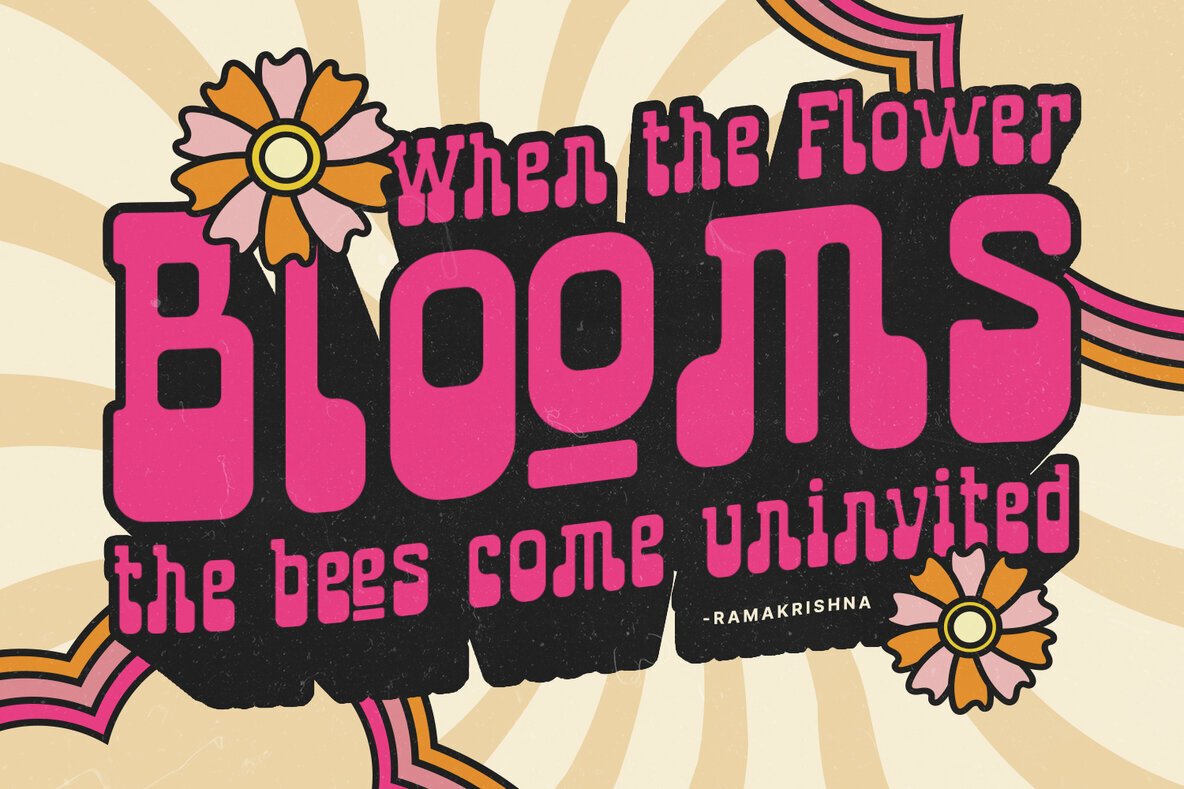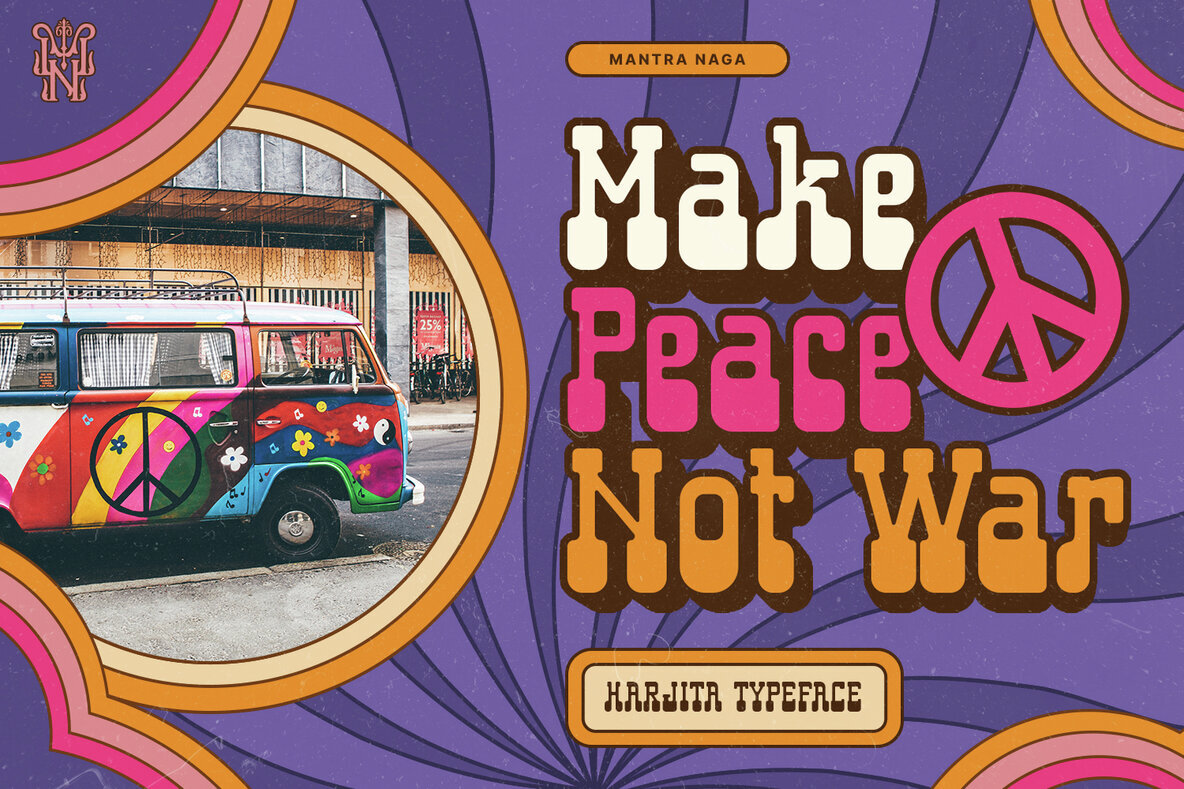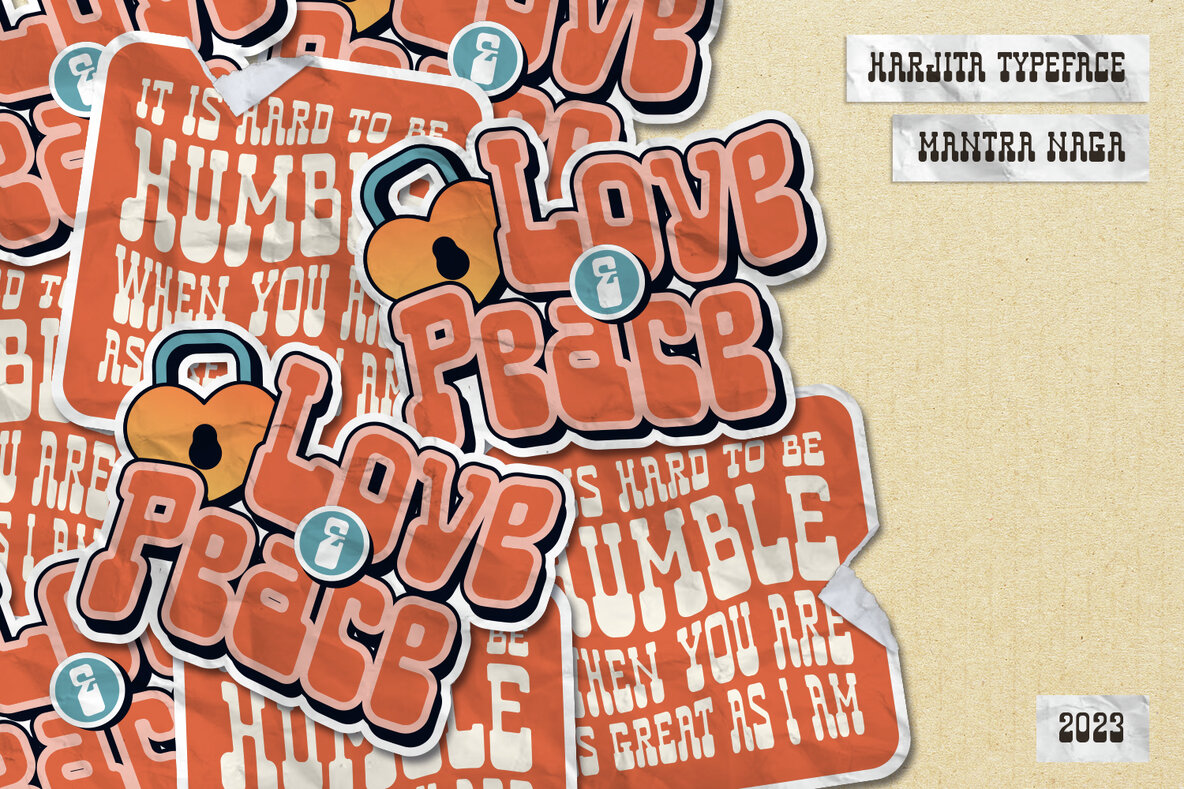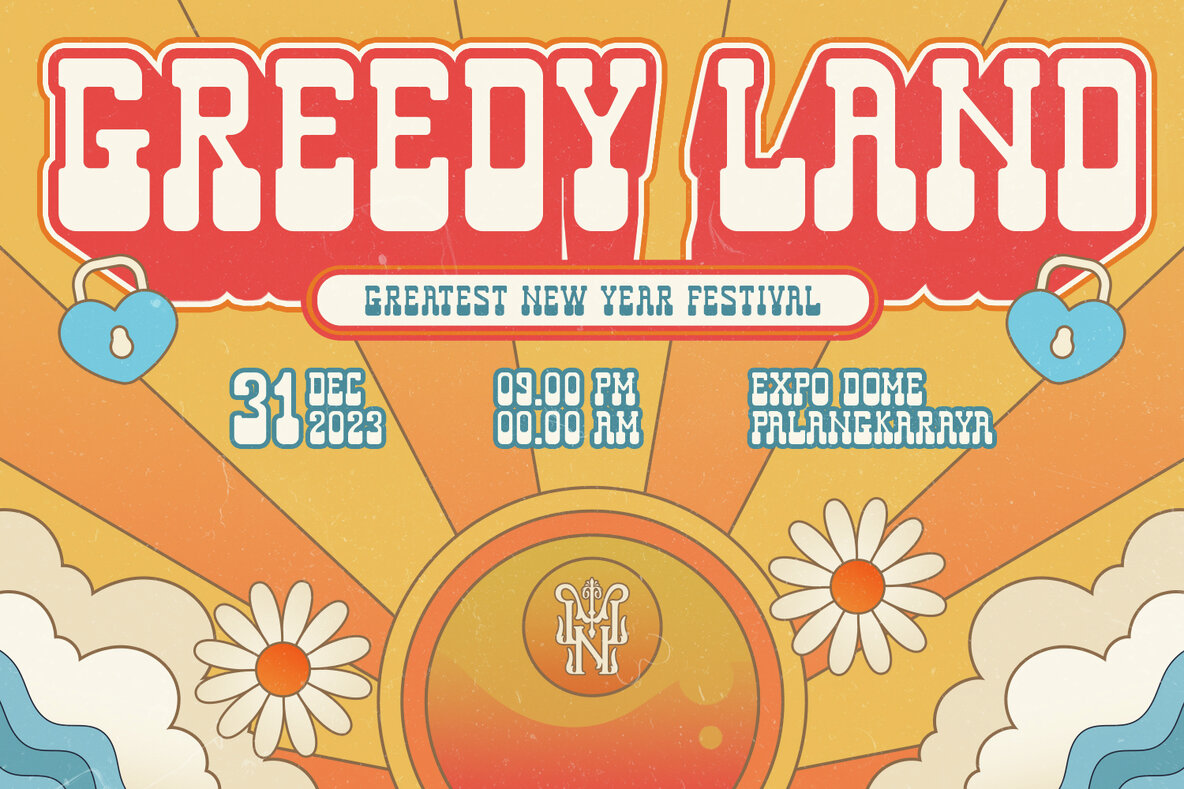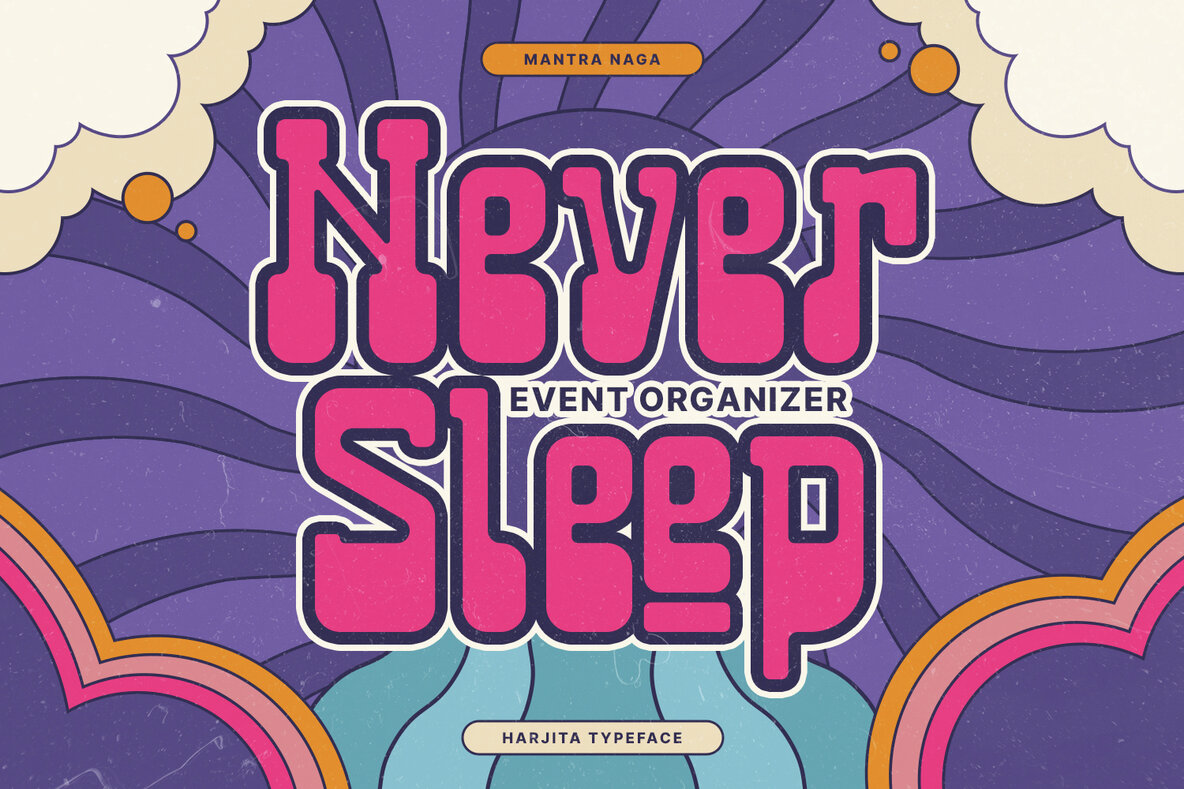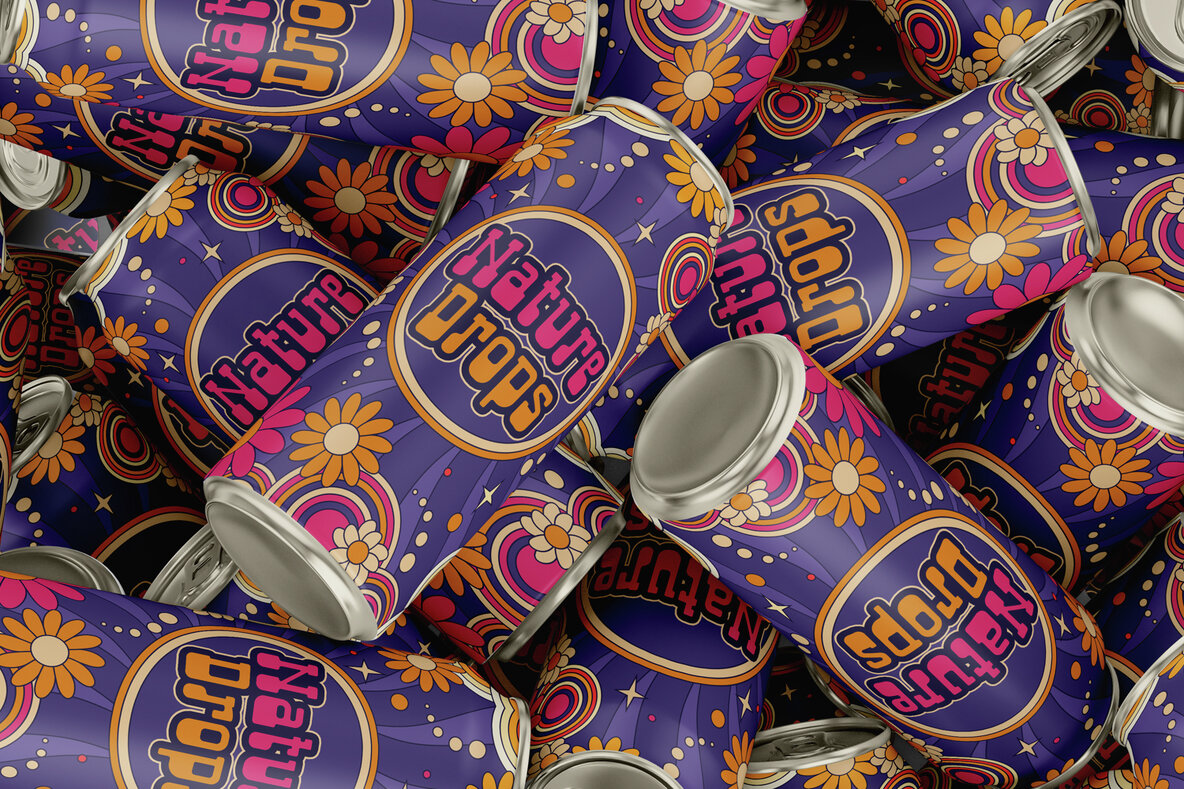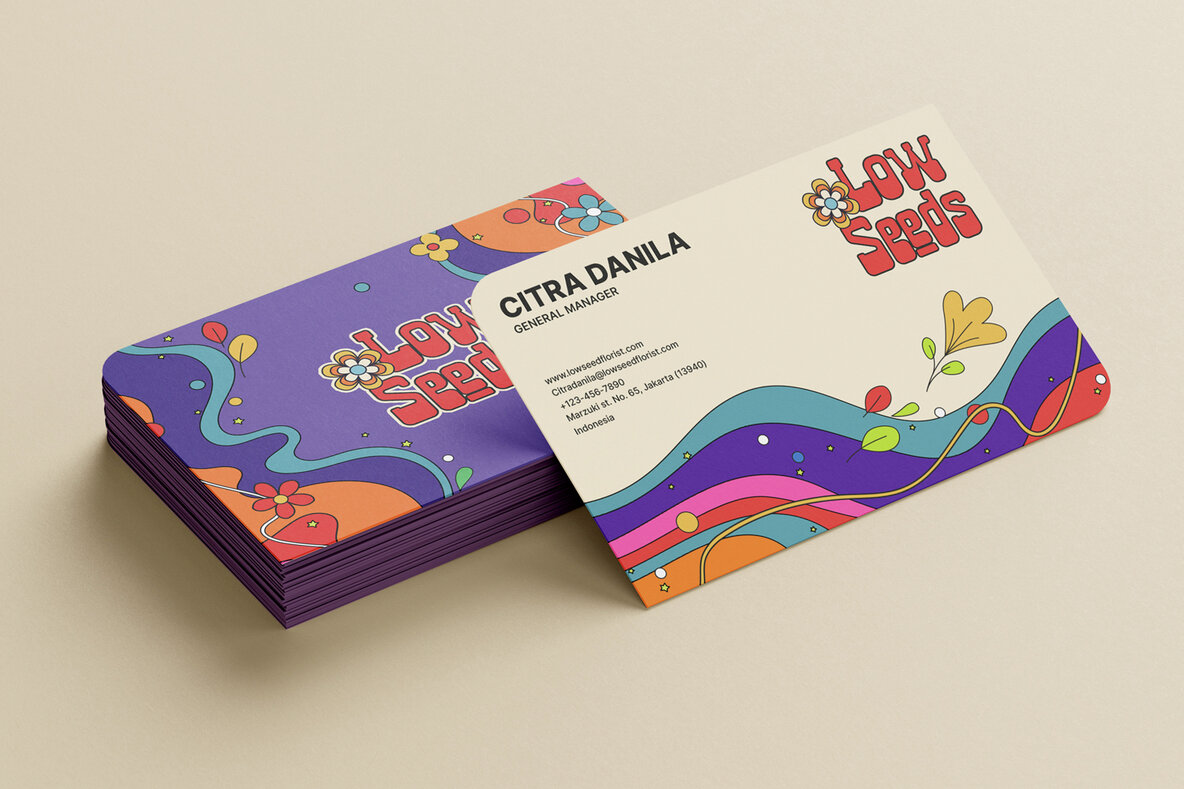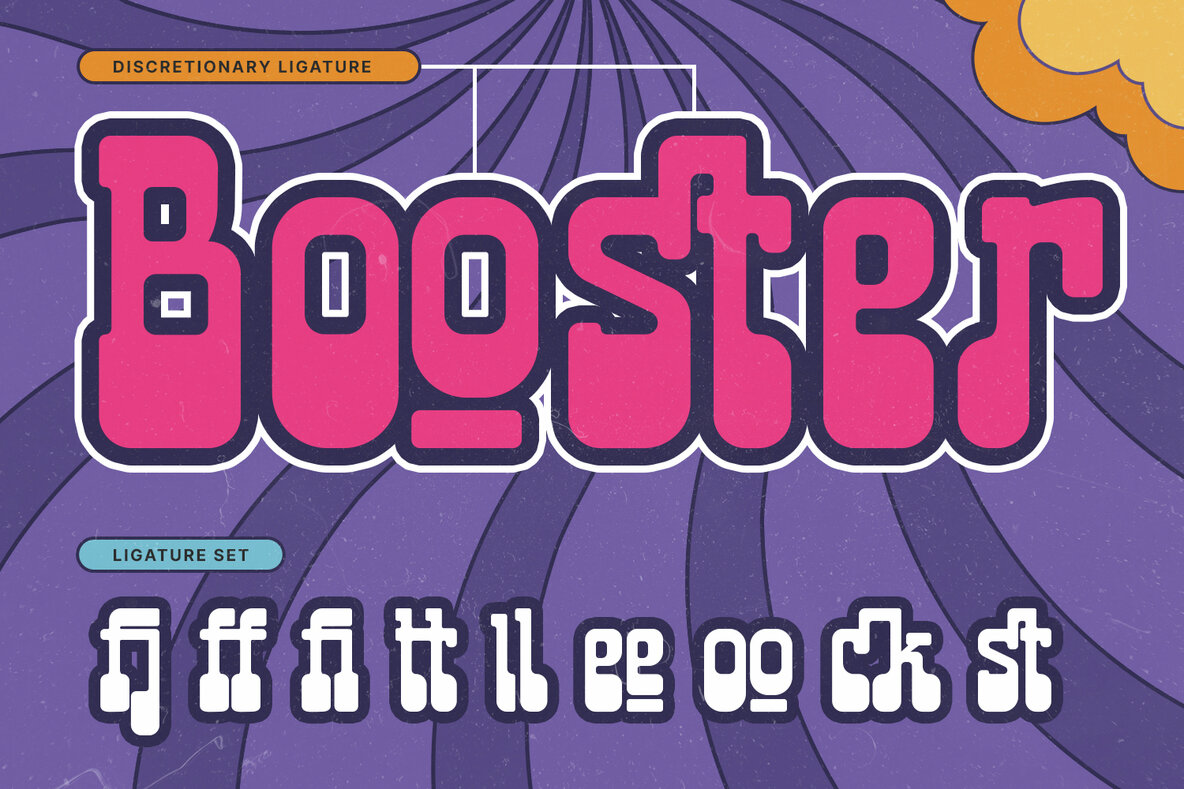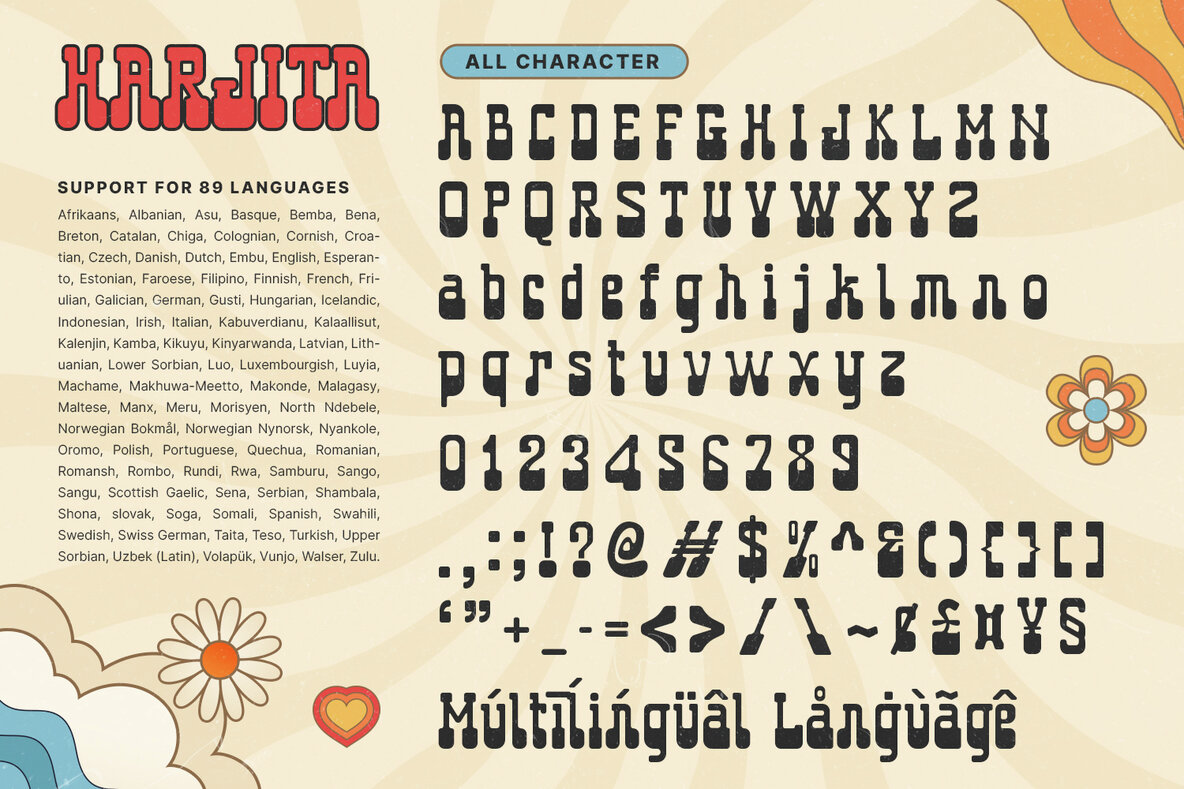
Harjita Font
Harjita Regular
Harjita is a Retro Groovy Font inspired by the retro pop style of the 80s-90s by combining a thick serif style and rounded corners so it looks friendly and easy to read. This font is perfect for brand identity needs or other graphic media. This font is also PUA encoded, which means you can easily access all glyphs and opentype features easily. Features: